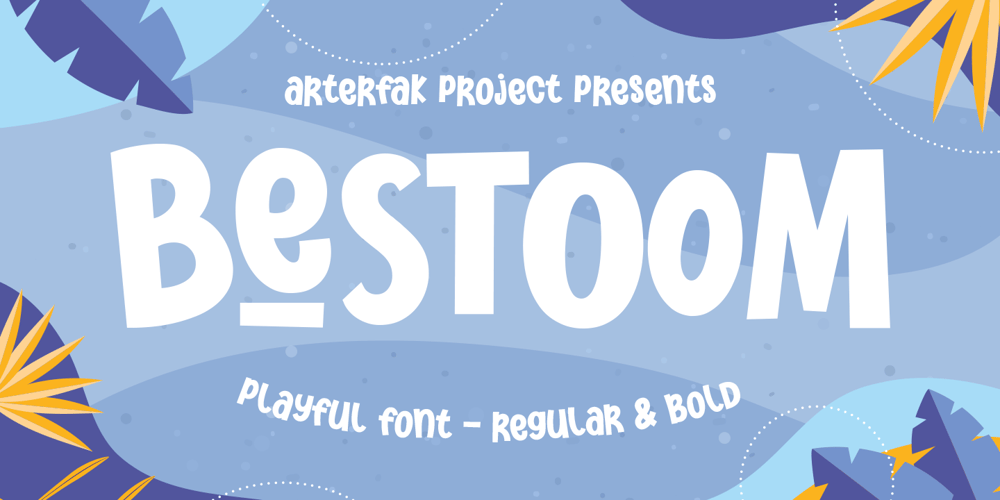
Bestoom Font Family was designed by Ahmad Ramzi Fahruddin and published by Arterfak Project. Bestoom contains 2 styles and family package options. Bestoom is a playful handwritten font, made with dynamic letter strokes and a bouncy layout that makes your design looks more cheerful! Inspired by comic typography and kids’ storybook.This font is available in regular and bold that you can use separated or combined. Bestoom is an all-caps font that has the gorgeous uppercase and lowercase also complete with alternates and playful ligatures that expand your possibility to get many variations of typographic design!Other features: Uppercase Lowercase Numbers Punctuations Accented characters : ÀÁÂÃÄÅÆÇÈÉÊËÌÍÎÏÑÒÓÔÕÖØÙÚÛÜÝÞßàáâãäåæçèéêëìíîïñòóôõöøùúûüýþÿĀāĆćĈĉĊċČčĎďĒēĖėĚě ĜĝĠġĢģĤĥĨĩĪīİıĴĵĶķĹĺĻļĽľŃńŅņŇňŌōŐőŒœŔŕŖŗŘřŚśŜŝŞşŠšŤťŨũŪūŮůŰűŴŵŶŷŸŹźŻżŽžȘșŢţ ẀẁẂẃẄẅ Stylistic alternates Custom ligatures Thank you for visiting and have a nice day!